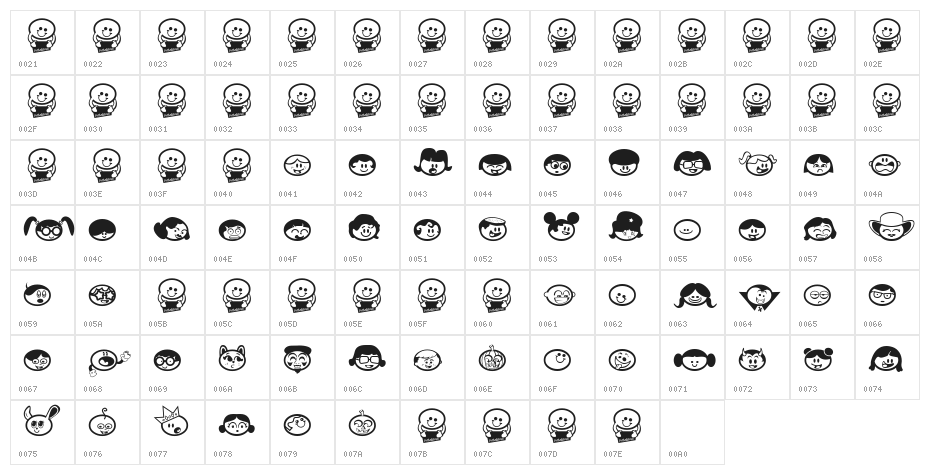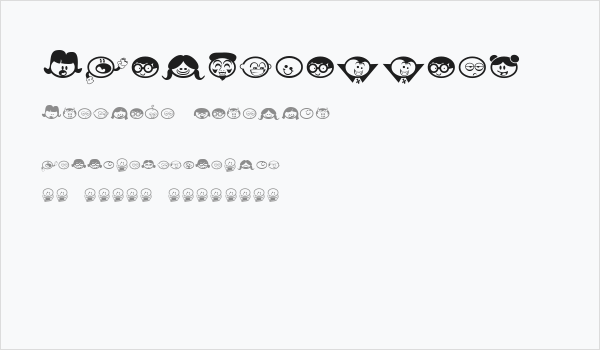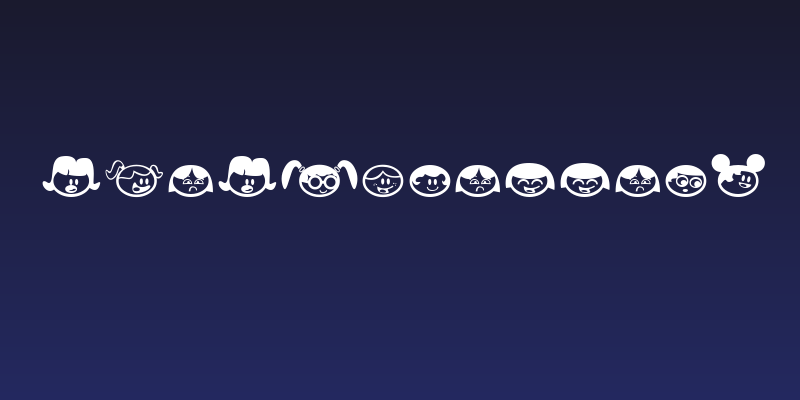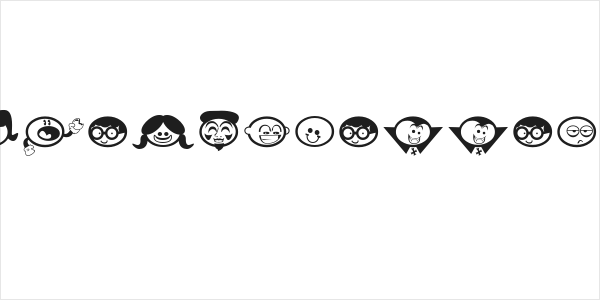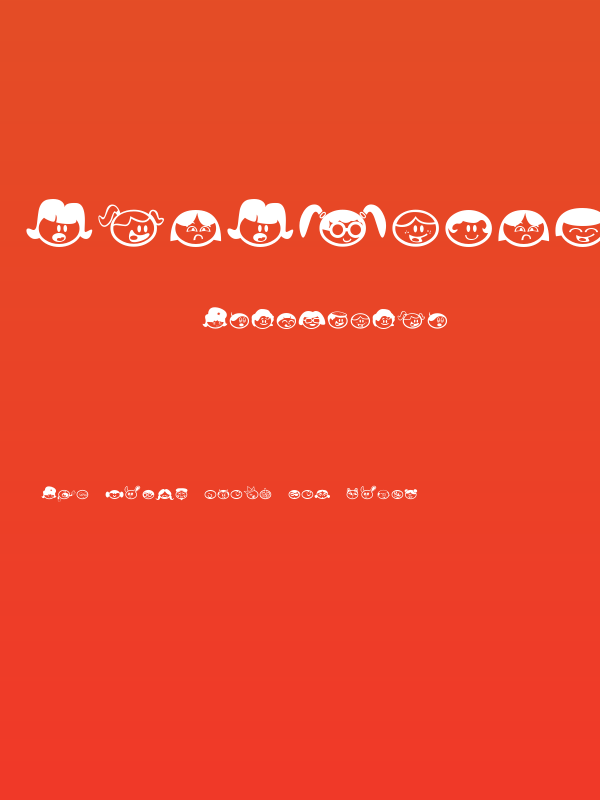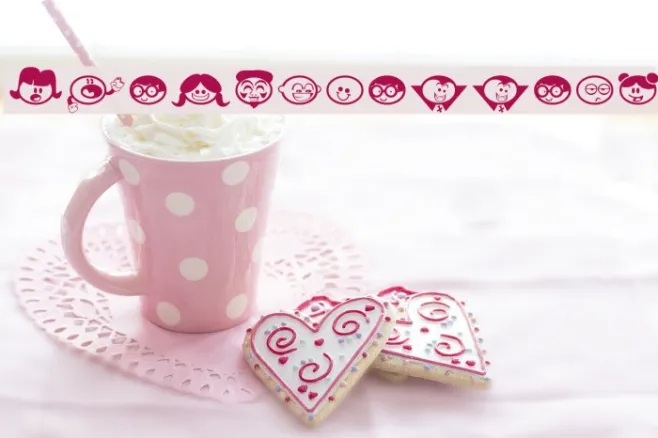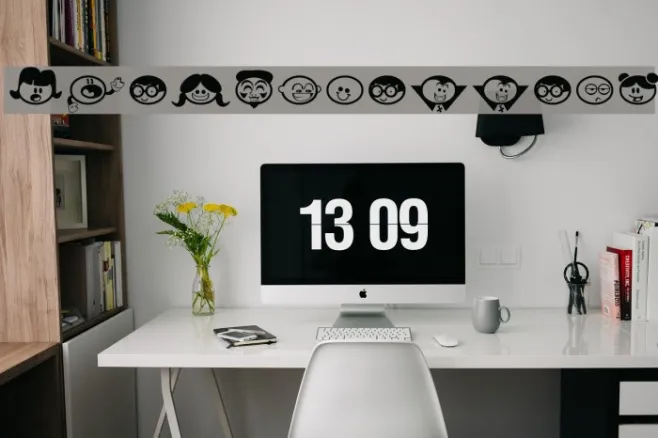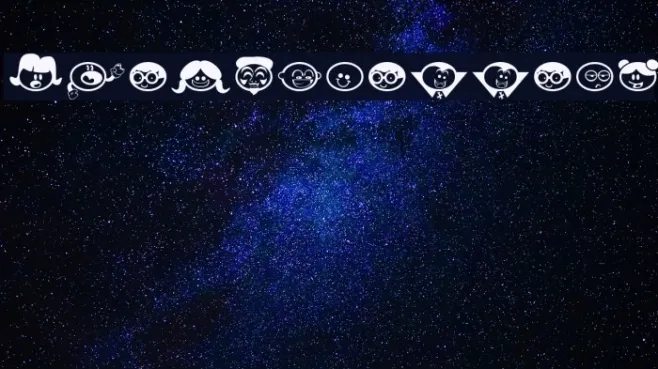
Chickabiddies Font
Chickabiddies Description
This set features a playful and whimsical collection of cartoon-style character icons. Each character is enclosed within a circular frame, showcasing a variety of expressions and accessories, from glasses and hats to unique hairstyles. The design is bold and simplistic, with thick outlines and minimal detailing, making each character easily recognizable and distinct. The style is reminiscent of classic comic illustrations, offering a nostalgic and fun aesthetic. The characters are diverse, representing a range of personalities and moods, which adds to the charm and versatility of the collection.
| Overall Style | Playful, Nostalgic |
| Use Case | Icons, Illustrations, Branding |
| Proposed Projects | Ideal for children's books, educational materials, playful branding, or any project requiring a fun and engaging visual element. |